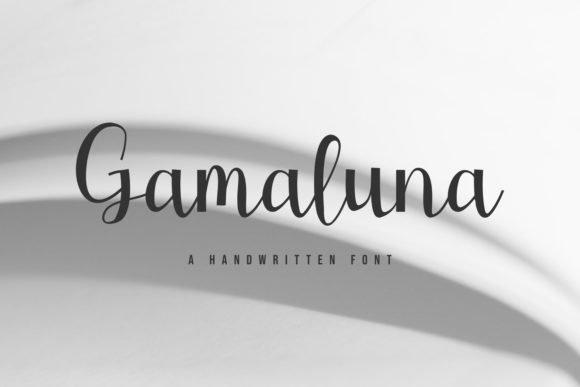
Unlock the Art of Handwritten Design with Gamaluna Font
Have you ever stared at a blank page, feeling the weight of creative expectation? The blank canvas stares back, daring you to bring your vision to life. For designers, this moment is both thrilling and intimidating – the spark of inspiration that sets the creative journey ablaze. And when that spark hits, it’s exhilarating to see your ideas take shape.
Enter Gamaluna Font, a beautiful handwritten script font that captures the essence of modern calligraphy. This versatile font is perfect for branding, digital designs, and everything in between. Whether you’re crafting a logo, designing wedding decor, or creating social media graphics, Gamaluna Font brings an authentic, elegant touch to your work.
For designers, Gamaluna Font is a valuable asset – a trusted tool that helps bring your unique style to life. Its adaptability makes it an ideal choice for a wide range of projects, from websites and blogs to business cards and social media posts. With Gamaluna Font, you can unlock your full creative potential and take your designs to the next level.
Gamaluna Font Key Features
- Font Family: Gamaluna is a unique, handwritten font designed for creative and artistic purposes.
- Unique Characteristics: Features a mix of cursive and script elements, with irregular letterforms and subtle flourishes, giving it a personal and expressive feel.
Design Review: Gamaluna Font
As a designer, I’ve had the chance to work with the Gamaluna font, and I must say it’s a unique and interesting choice. Here are my honest thoughts.
- The Gamaluna font has a distinctive, hand-drawn feel that adds a touch of personality to any design.
- It’s highly legible, even at smaller font sizes, making it a great choice for body text or captions.
- The font’s versatility makes it suitable for a wide range of design projects, from fashion to food labels.
- The font’s irregular shapes and lines may not be suitable for designs that require a more formal or traditional look.
- The font’s character set is limited, which may cause issues when working with languages that require a broader character range.
- The font may not be optimized for digital use, leading to potential issues with clarity and readability on screens.
Overall, the Gamaluna font is a great choice for designers looking to add a touch of whimsy and personality to their projects. While it may have some limitations, its unique character and versatility make it a valuable addition to any design arsenal.
Getting the Most Out of Gamaluna Font
For the best results, use Gamaluna Font for headings and titles, as it is a bold and elegant font. Pair it with a clear and readable font for body text. Experiment with different font sizes and colors to create visual hierarchy and emphasis.
Gamaluna Font is suitable for creative projects, such as:
2. Branding and logo design.
3. Advertising and marketing materials.
4. Digital products, such as ebooks and templates.
Alternative Fonts to Gamaluna
Lato is a modern sans-serif font designed by Łukasz Dziedzic. It is a clean and elegant font that works well for both digital and print media. Lato is a great alternative to Gamaluna Font when you need a font that is easy to read and has a high level of legibility. It has a similar feel to Gamaluna Font, but with a more neutral and modern look.
Montserrat is a sans-serif font designed by Julieta Ulanovsky. It is a geometric font that is inspired by the urban landscape of Montserrat, a neighborhood in Buenos Aires. Montserrat is a great alternative to Gamaluna Font when you need a font that is bold and edgy. It has a similar level of sophistication to Gamaluna Font, but with a more urban and industrial feel.
Merriweather is a classic serif font designed by Eben Sorkin. It is a traditional font that is inspired by the classic typography of the early 20th century. Merriweather is a great alternative to Gamaluna Font when you need a font that is elegant and sophisticated. It has a similar level of refinement to Gamaluna Font, but with a more traditional and classic look.